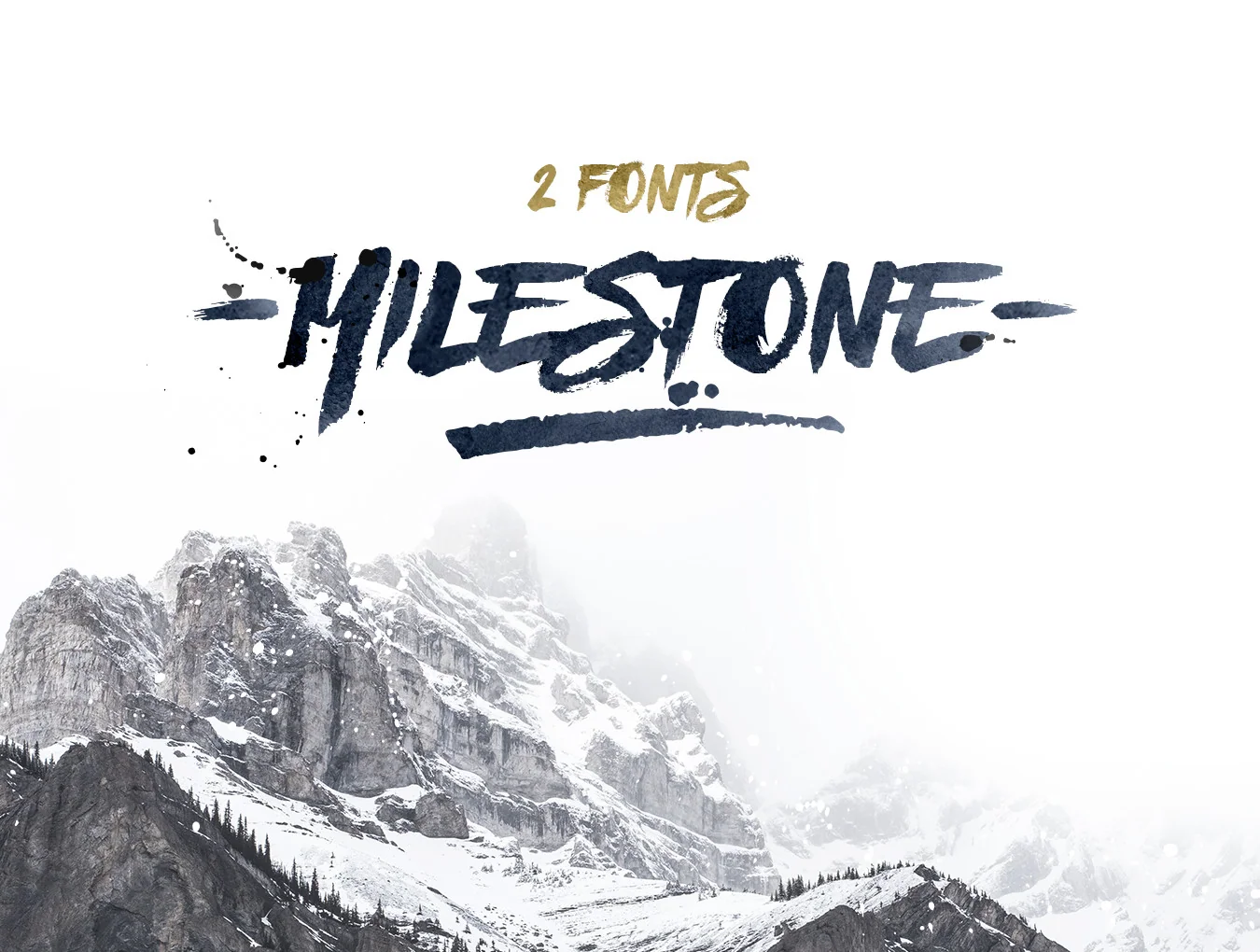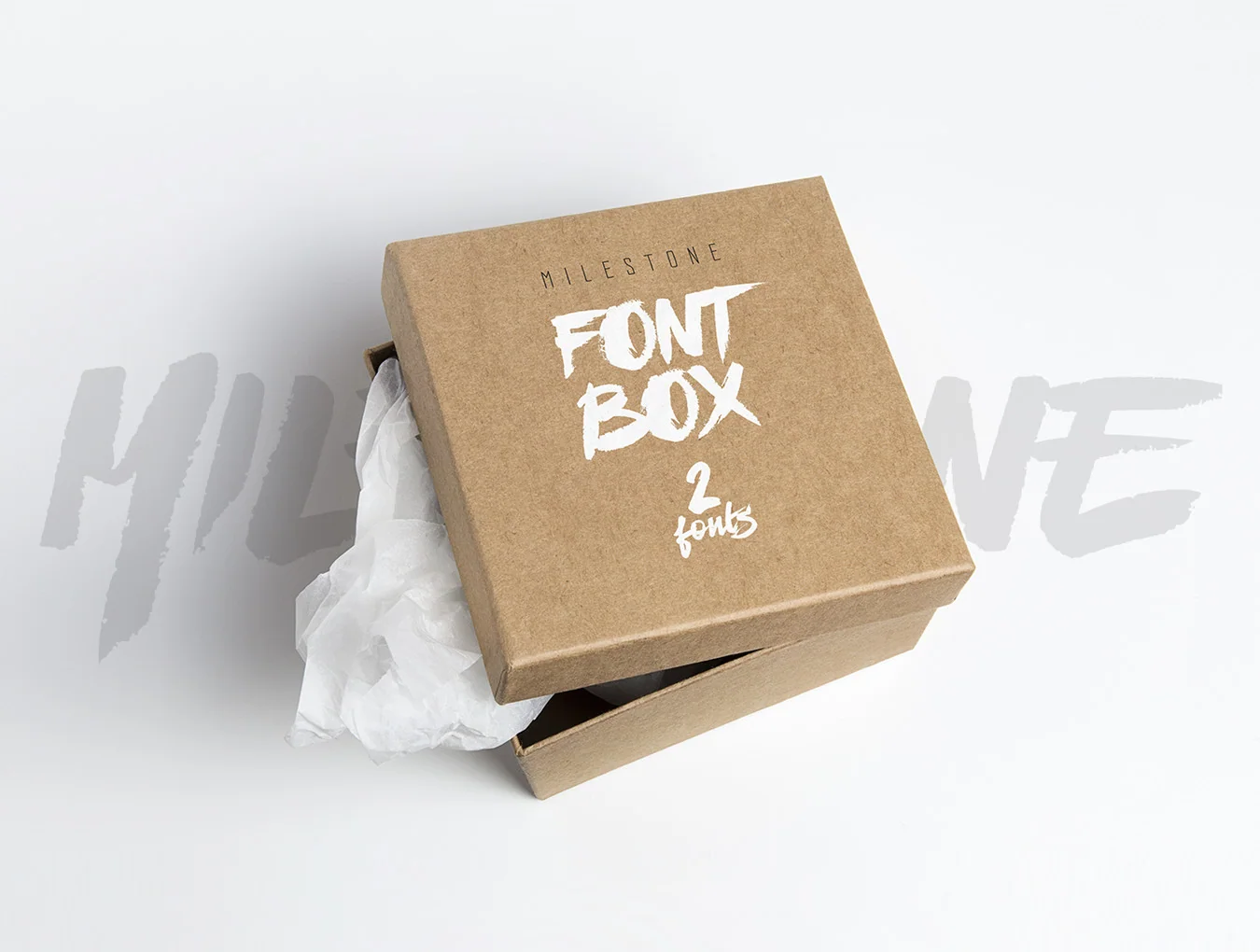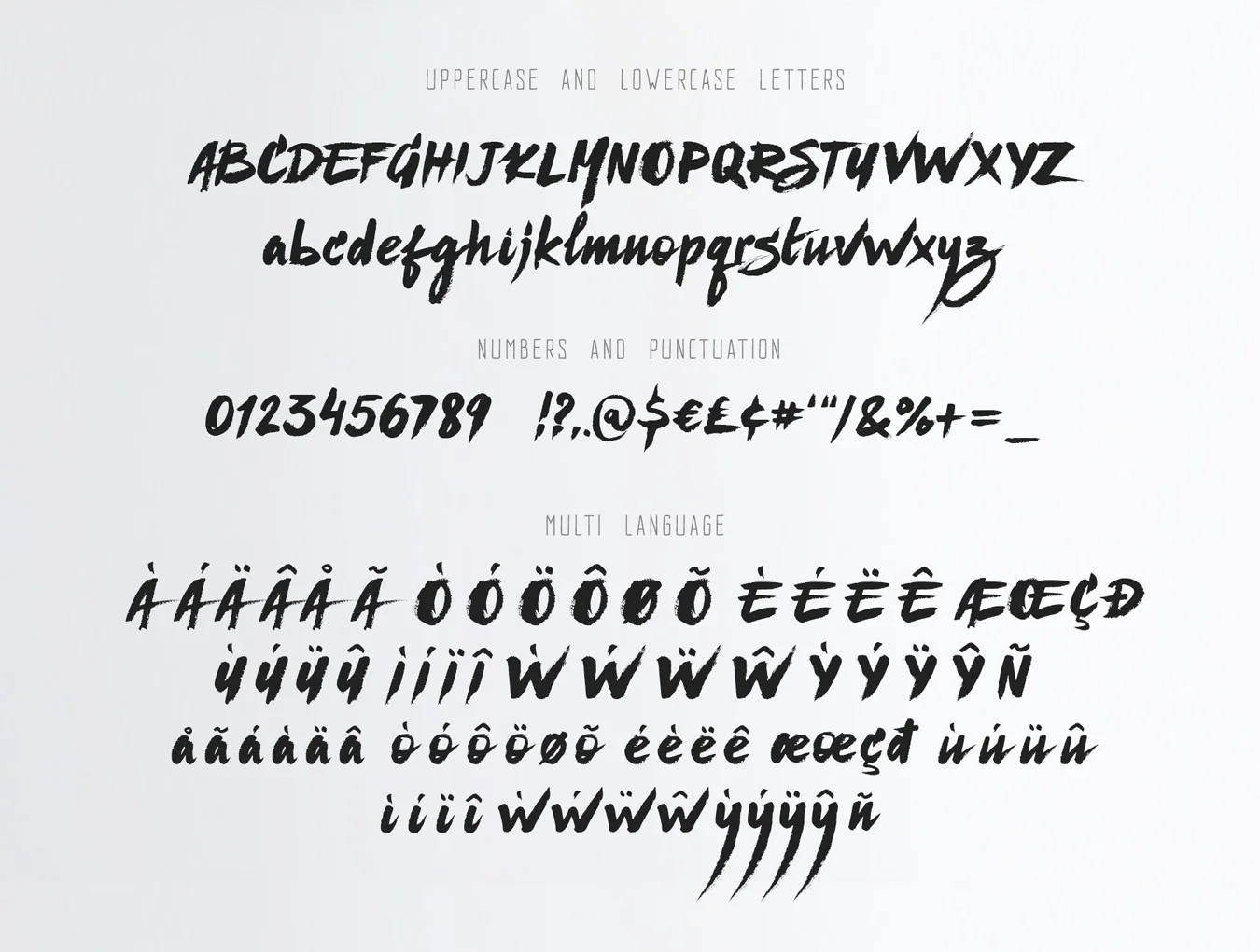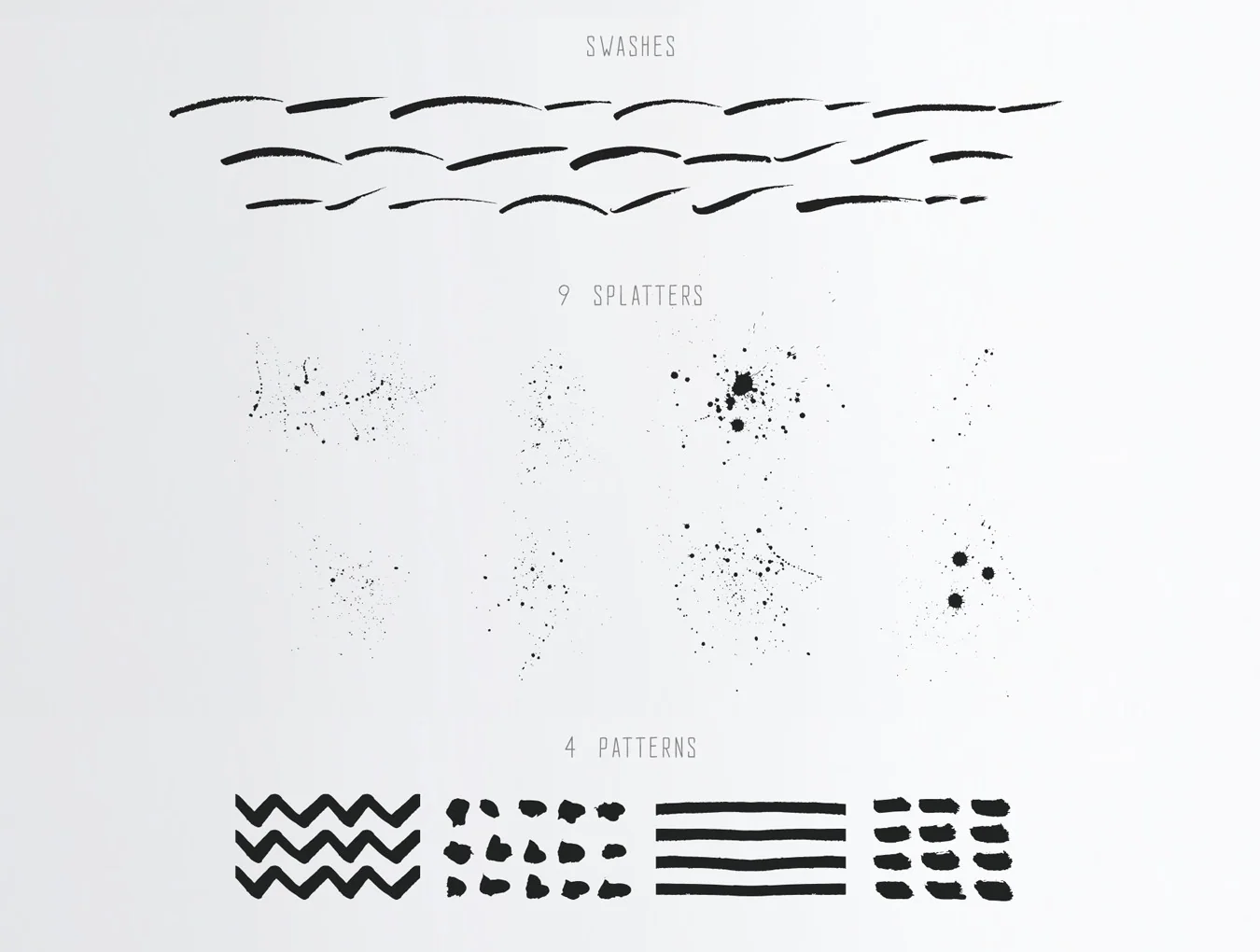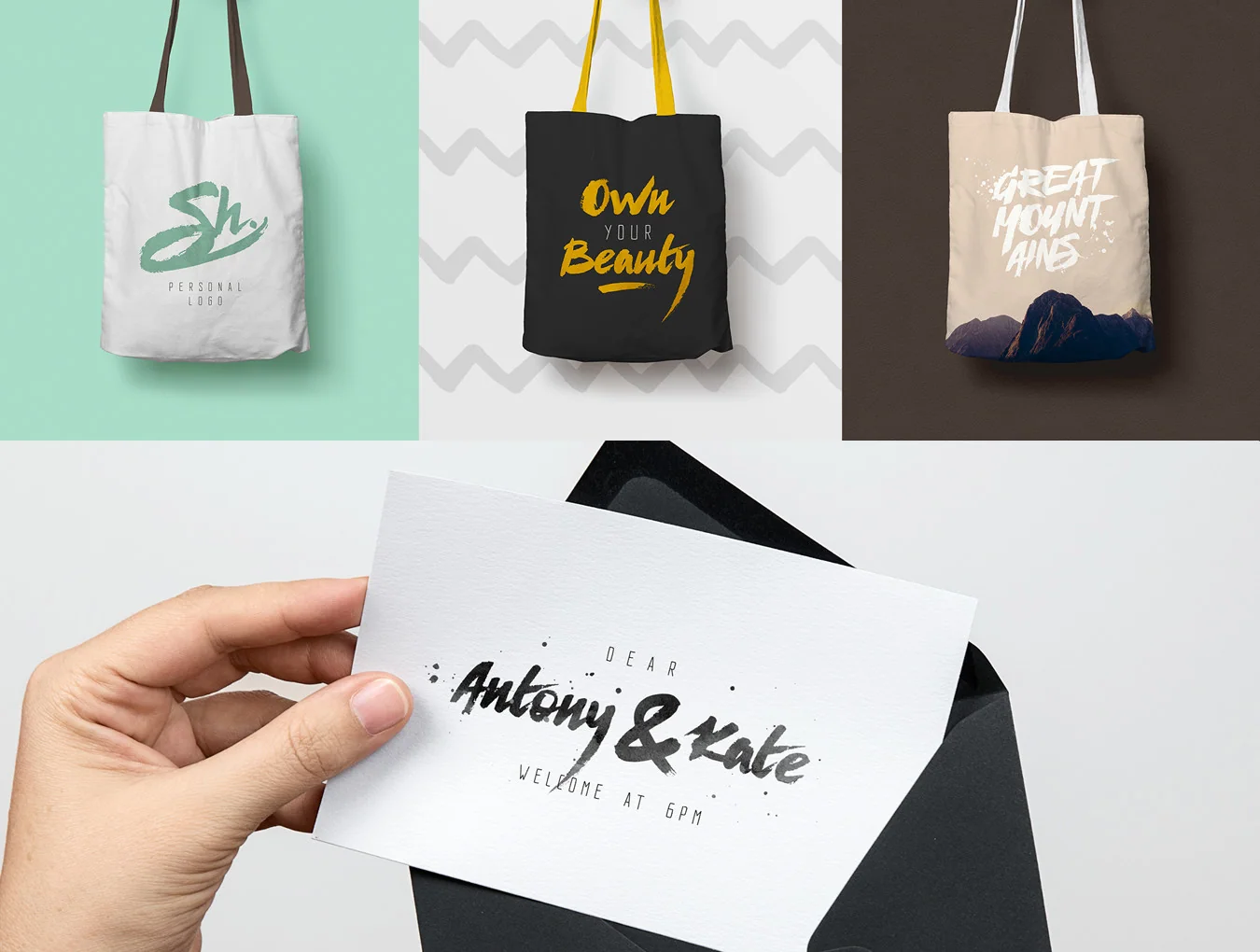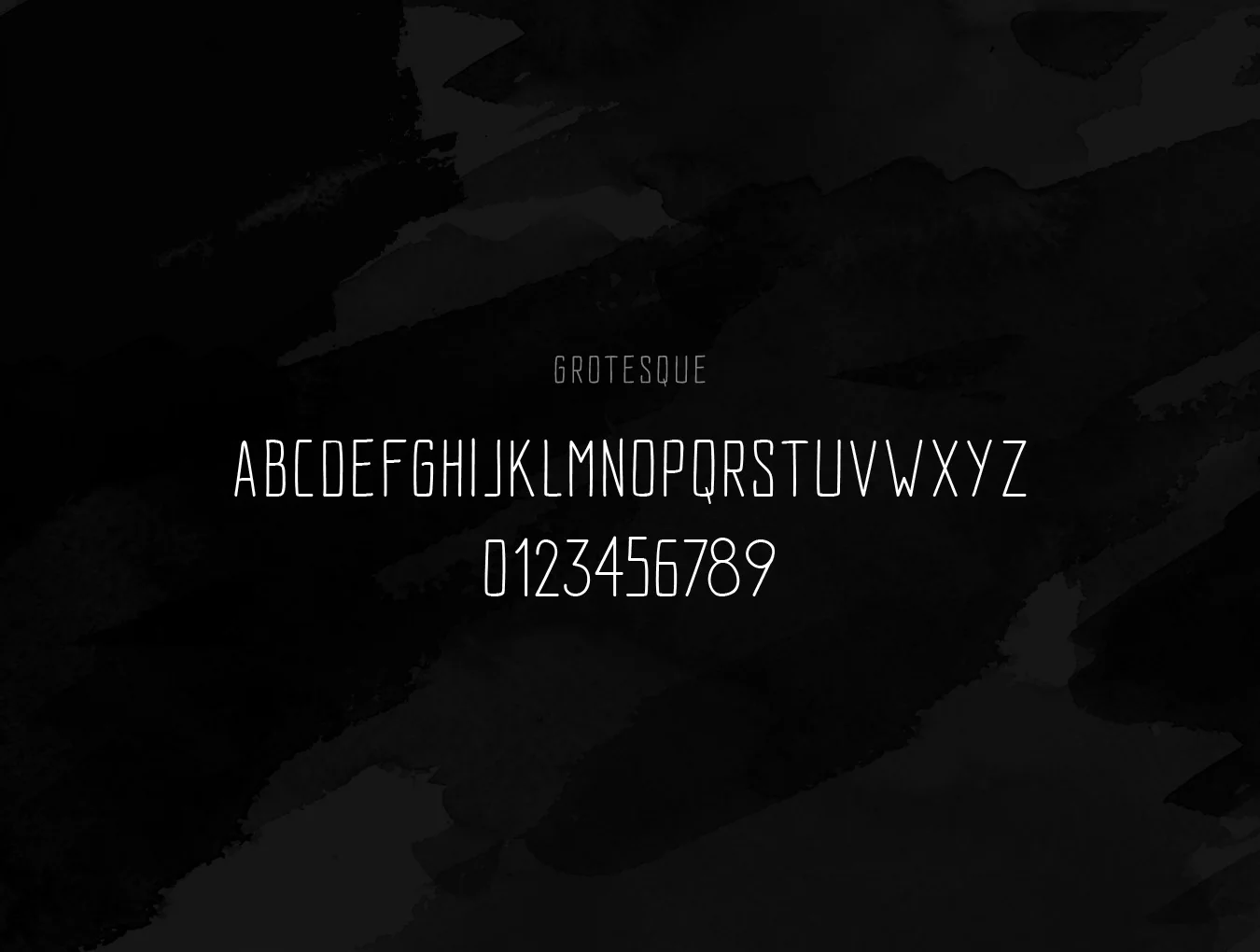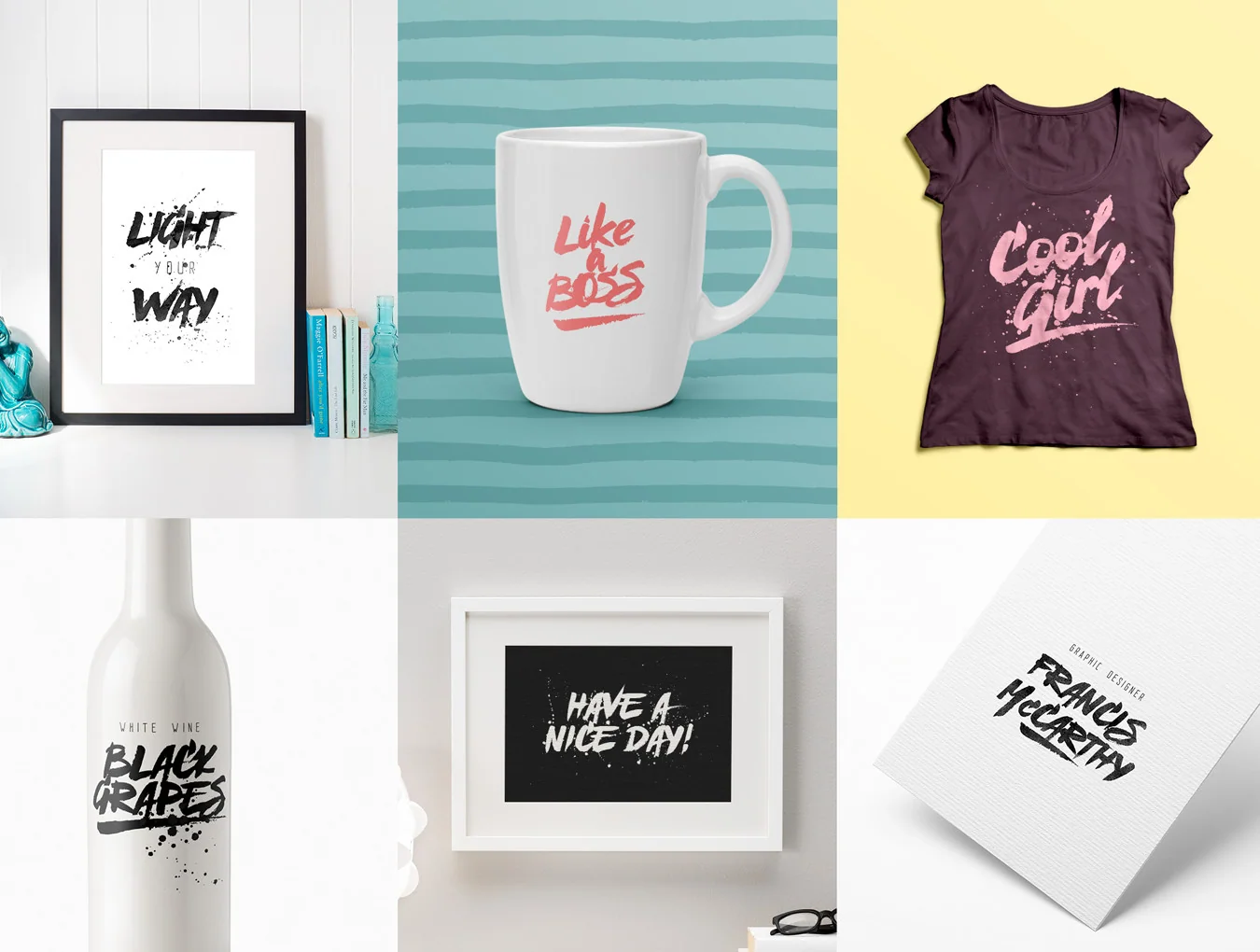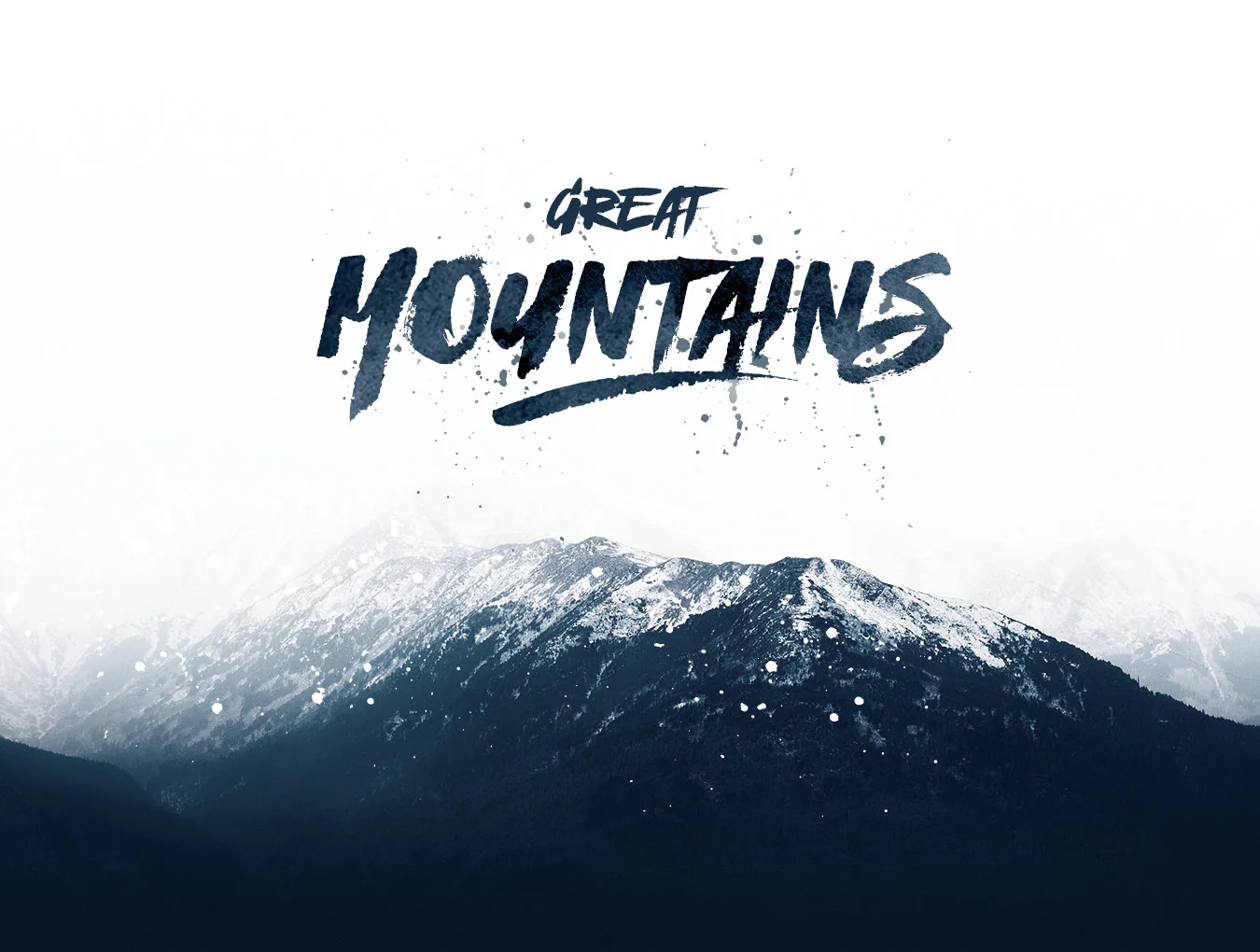
Milestone Fonts
Artisan hand-lettering
Capital and small letterforms
Numbers plus punctuation marks
Extra graphics bundle
Milestone offers complete uppercase and lowercase characters, letting you craft text with a genuine custom hand-lettered feel. It also features many glyphs, including numbers, punctuation, multilingual characters, plus a bonus extras font with 26 swashes. Milestone Grotesque is included as a matching support font.